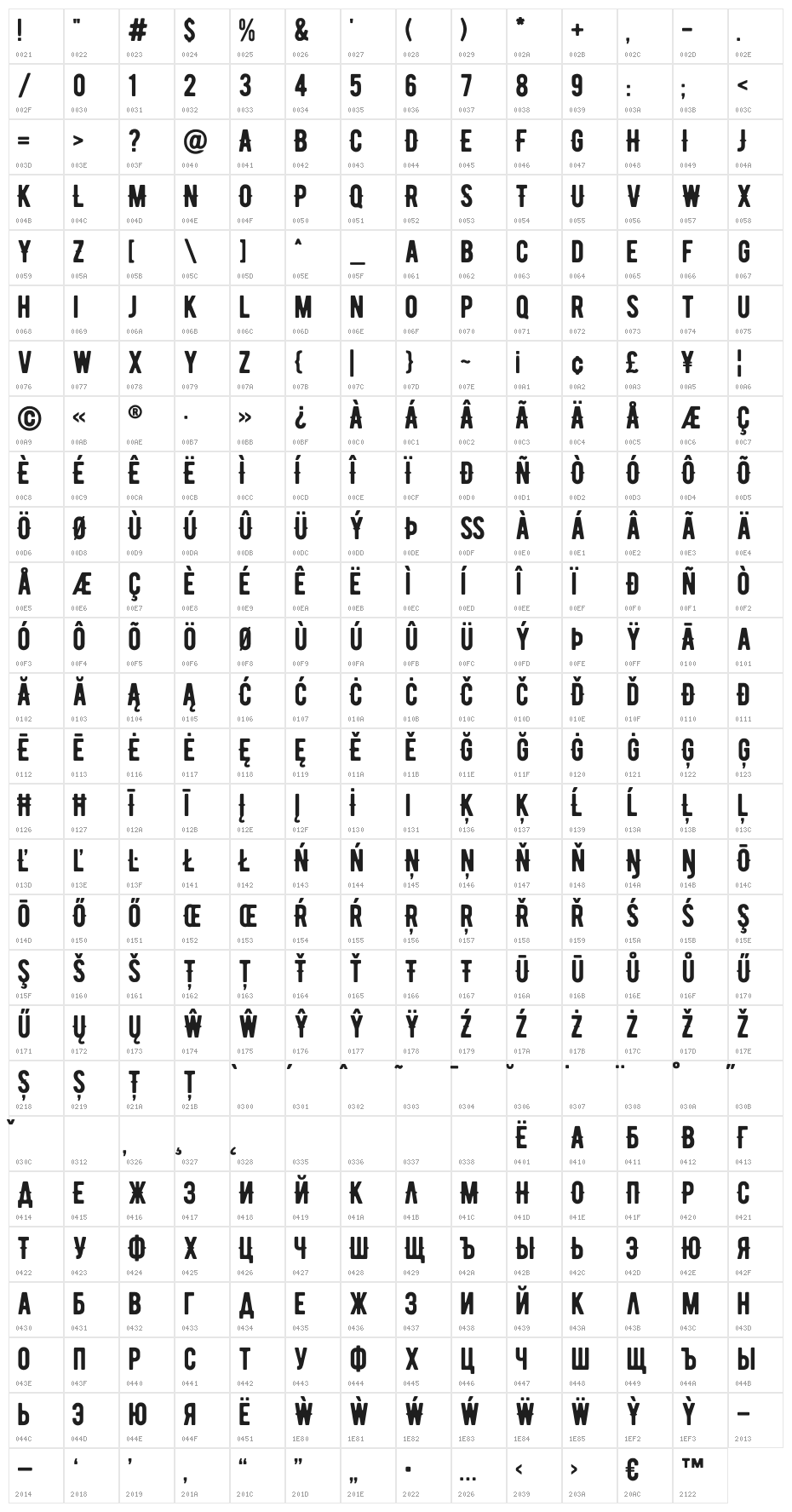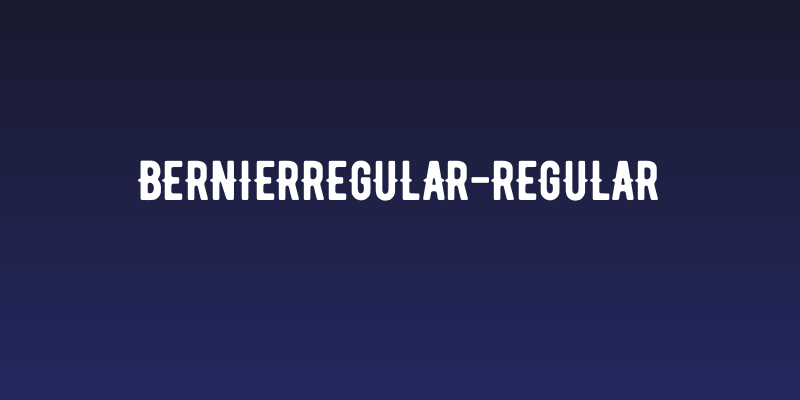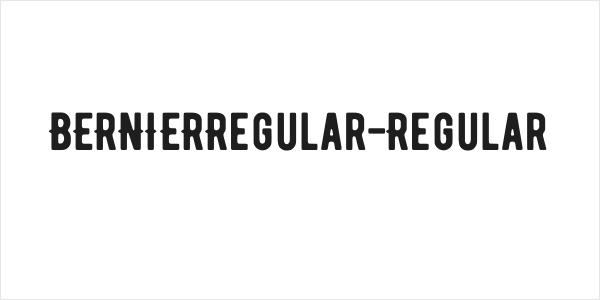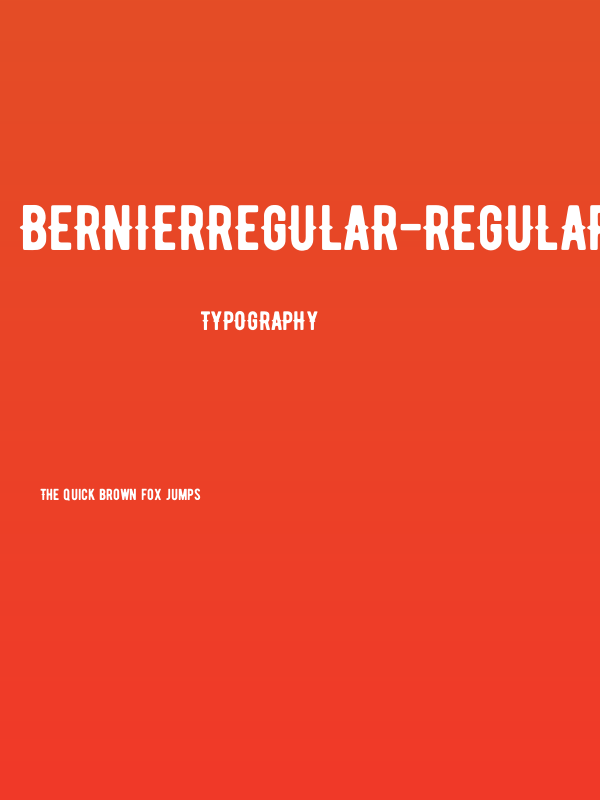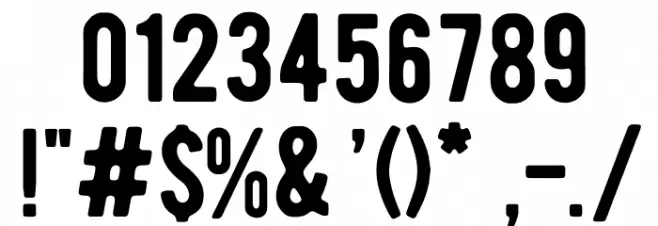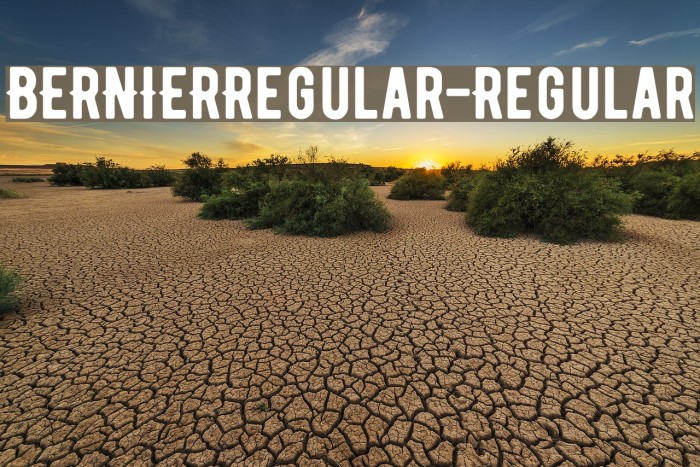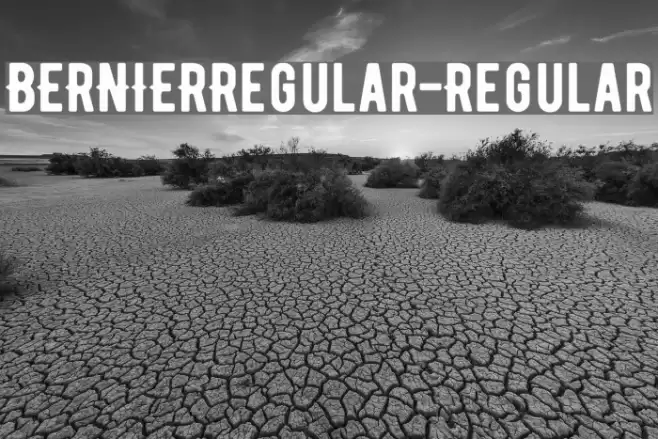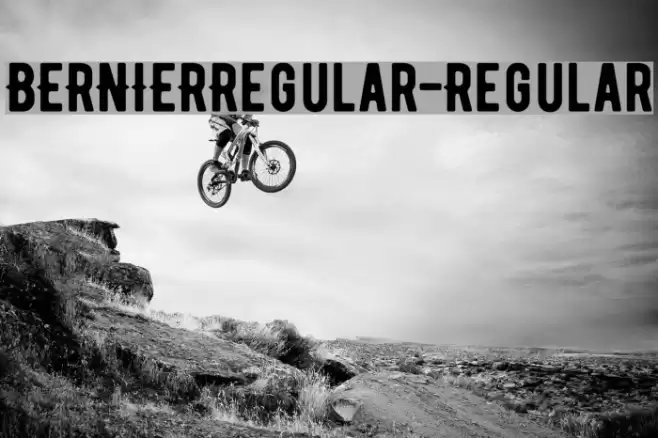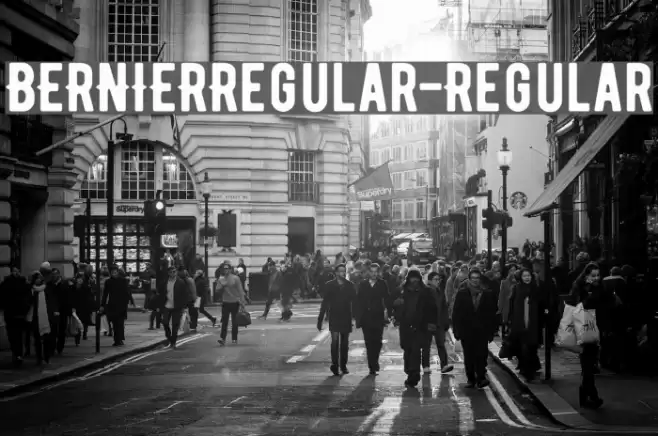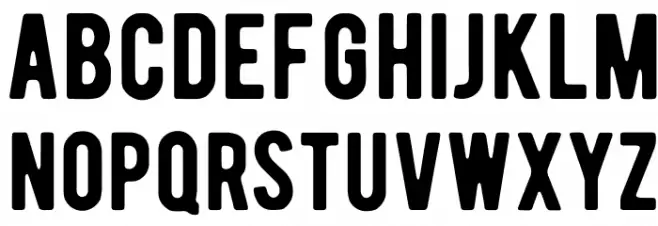
BERNIERRegular-Regular Font
| Stil general | Modern, Vintage |
| Caz de utilizare | Headlines, Logos, Signage |
| Proiecte propuse | This font is perfect for branding projects, posters, and signage where a strong and memorable impression is needed. It can also be used for editorial design, such as magazine covers or article titles, to draw attention and convey a sense of authority. |